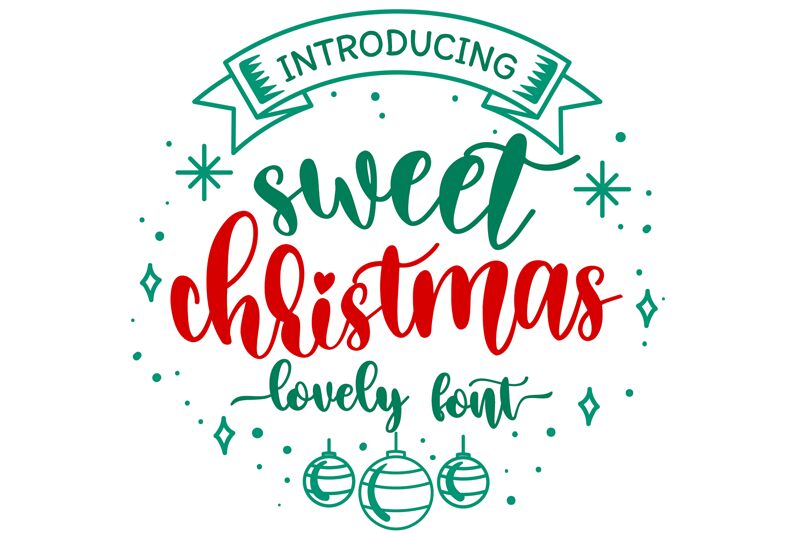
Sweet Christmas
Sweet Christmas, a mesmerizing calligraphy font by Bearytype, brings elegance and warmth to your projects. Its delicate strokes and intricate curves evoke a sense of joy and celebration. Perfect for holiday-themed designs, greeting cards, wedding invitations, and branding materials, this semi-condensed typeface adds a touch of sophistication to any project. Let Sweet Christmas transport your audience to a world of enchantment with its graceful script and versatile charm. Spread the holiday cheer with this delightful font that captures the spirit of Christmas in every letter.